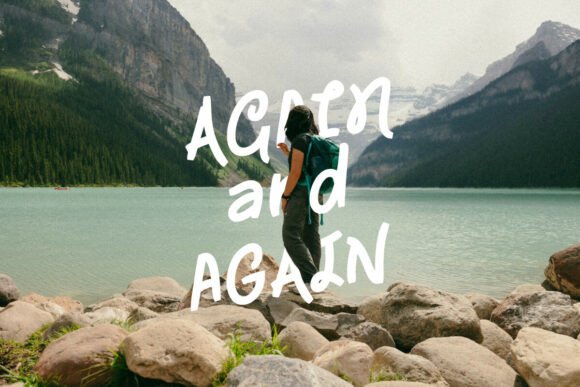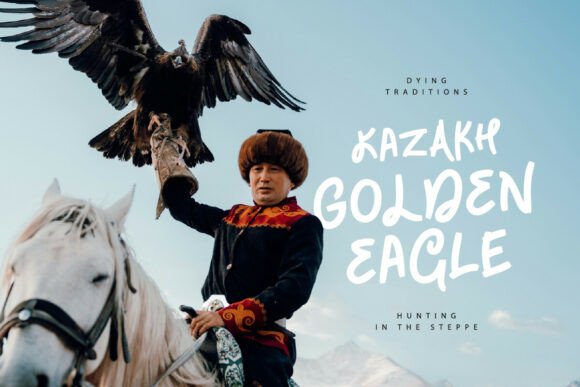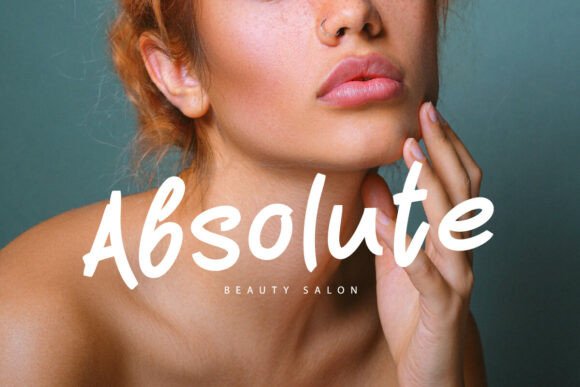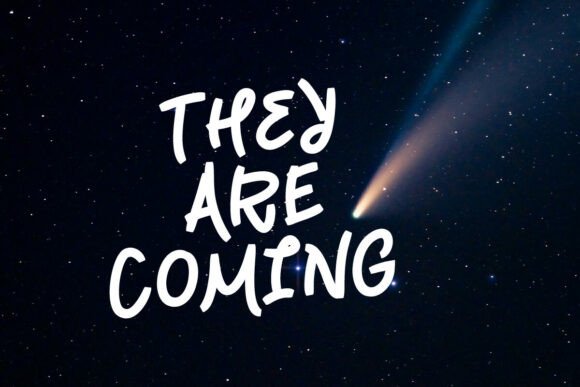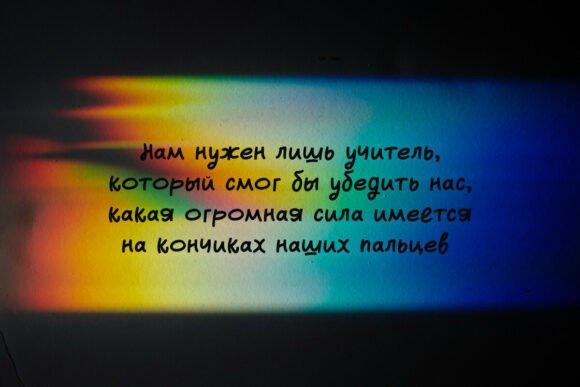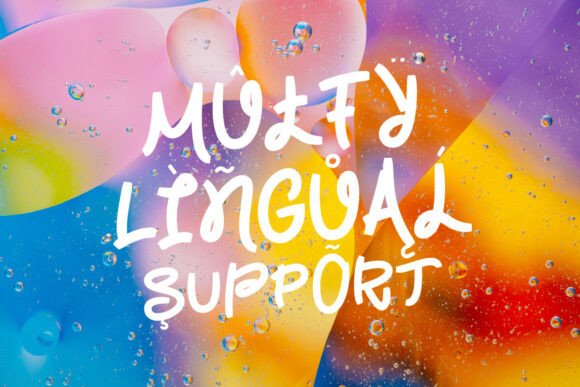
Introduction to Nimella Script Font
Do you ever find yourself staring at a blank canvas, waiting for that perfect spark to ignite your creative project? For designers, this moment is a crucial part of the process – the moment when all the ideas start flowing, and the project begins to take shape. And, for many of us, the right font can be that spark that sets everything off.
That’s where Nimella Script Font comes in – a high-quality, bold, and bouncy handwritten font that’s perfect for adding a touch of playfulness to your designs. With its robust, highly legible letterforms and vibrant aesthetic, this design resource is a valuable addition to any creative’s toolkit. And, with free download options available, you can access this versatile script without breaking the bank.
Whether you’re working on a children’s product, a playful branding project, or a social media graphic, Nimella Script Font is an excellent choice for designers looking to add a fun, friendly, and energetic vibe to their work.
Key Features of Nimella Script Font
- Nimella Script Font is a high-quality, elegant script font perfect for designers looking for a unique design resource.
- Nimella Script Font features a transparent background, allowing for seamless integration with any design element.
- Nimella Script Font includes 500+ glyphs, making it suitable for a variety of creative projects, from logos to typography-based designs.
- This font is designed to be highly legible at various resolutions, including 300 DPI and 600 DPI, making it perfect for both digital and print projects.
- Nimella Script Font is a unique and creative design element that can add a touch of sophistication to any project, from branding to packaging design.
Honest Review: Nimella Script Font
I recently had the chance to work with the Nimella Script Font, and I must say it’s a great addition to any design resource collection. The high quality of the font makes it perfect for any creative project, from logos to wedding invitations.
- ✨ Beautifully crafted letters with a lot of character
- ✨ Perfect for cursive and script-based designs
One of the standout features of the Nimella Script Font is its transparent background, which makes it easy to use in any design scenario. However, I did notice that the font is not as versatile as some other options on the market.
- ⚠️ Not as versatile as some other fonts
- ⚠️ Limited character set, which may not be suitable for all design projects
Overall, I would highly recommend the Nimella Script Font to designers looking for a high-quality, easy-to-use script font. With its beautiful letters and transparent background, it’s a great addition to any design resource collection.
Nimella Script Font: A High-Quality Design Resource
Tips for Getting the Most Out of Nimella Script Font
To get the most out of the Nimella Script Font, use it in combination with other design elements, such as images and graphics, to create a visually appealing design. Experiment with different font sizes, colors, and styles to achieve the desired look.
Common Use Cases for Nimella Script Font
The Nimella Script Font is ideal for a variety of creative projects, including:
Is the Nimella Script Font a high-quality design resource?
Yes, the Nimella Script Font is a high-quality design resource that’s designed to provide a unique and elegant look for your creative project. Its high-quality design and wide range of styles make it an excellent choice for designers who want to add a touch of sophistication to their work.